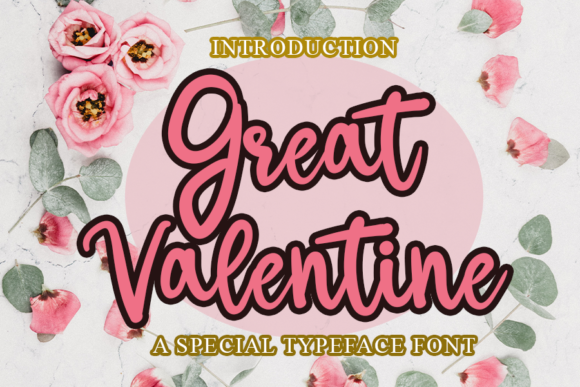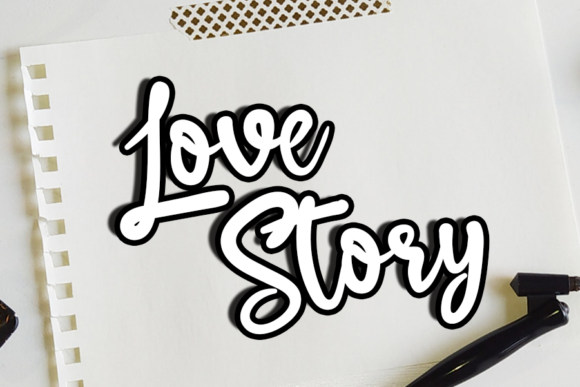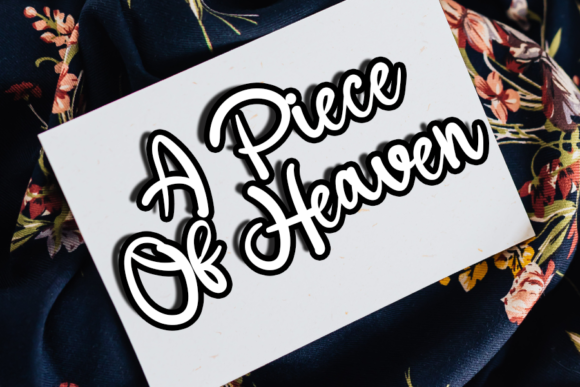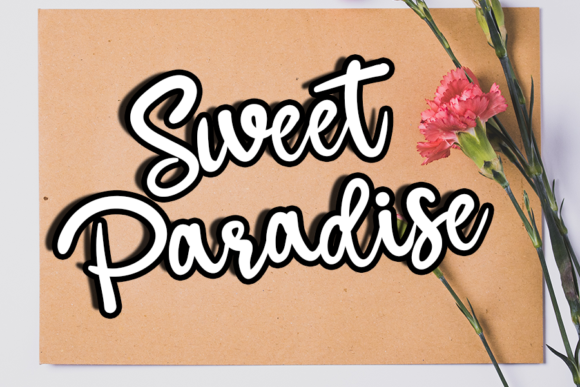
Great Valentine Font
About Great Valentine Font
Great Valentine is a trendy and delicate script font. This versatile script font has a wide spectrum of applications ranging from greeting cards to headlines and is guaranteed to add a romantic feel to your next project.